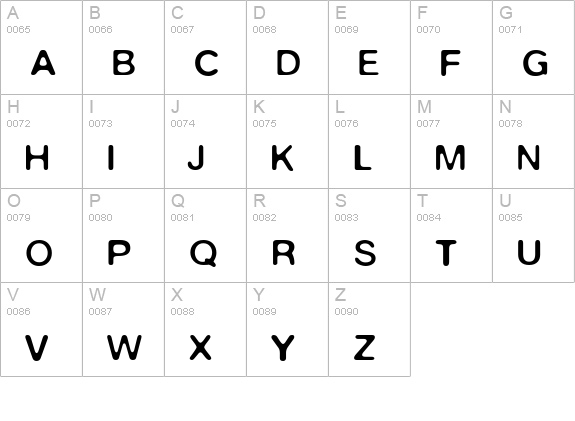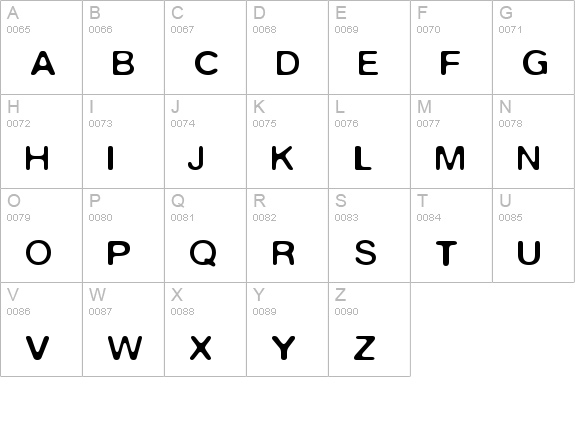
PFAqua Bold is a strong, high-contrast variant in the PFAqua typeface family \xE2\x80\x94 well suited to headlines, attention-grabbing titles, and strong calls-to-action.
PFAqua Bold is a modern and sleek sans-serif font that exudes confidence and sophistication. With its bold and clean lines, this font commands attention and is perfect for making a statement in any design project. Whether you are creating a logo, poster, or website, PFAqua Bold will add a touch of elegance and professionalism. The best part is that PFAqua Bold is available for free download at FontsMarket.com. This means you can easily access and use this stylish font in your projects without any cost. Don't miss out on the opportunity to enhance your designs with the striking PFAqua Bold font today.